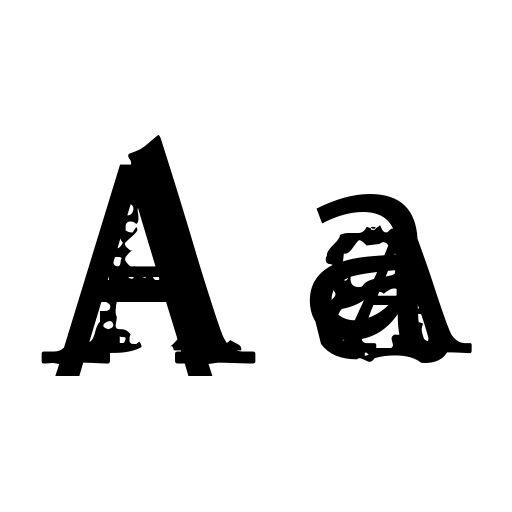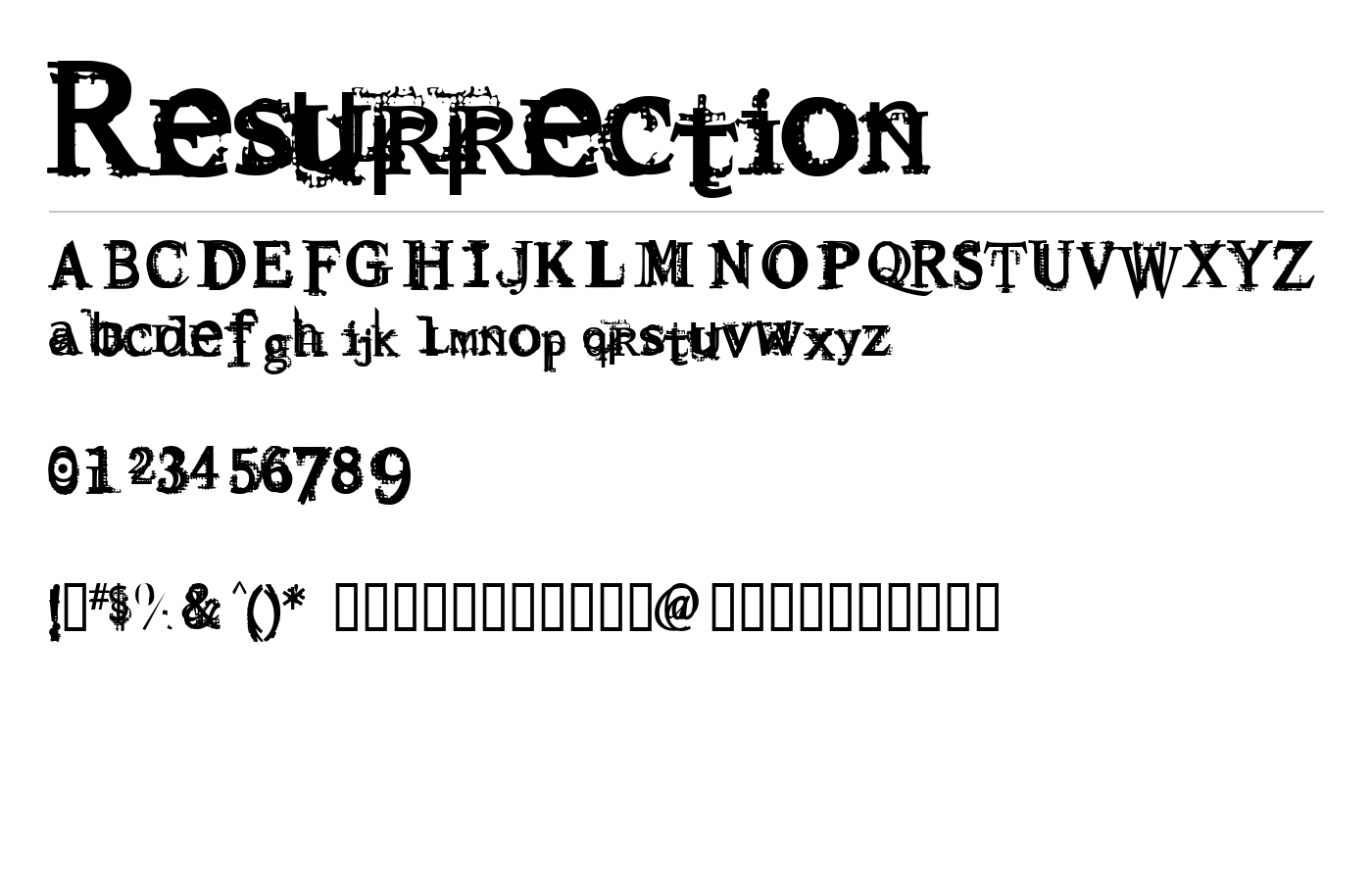
Resurrection is a bold, distressed slab serif font with a strong vintage and rugged character. Featuring rough, irregular edges and a condensed structure, it conveys a gritty, rebellious mood ideal for edgy branding, posters, or designs needing a raw, impactful look. Its textured, worn appearance makes it perfect for creative projects seeking an authentic and bold statement.
Resurrection Font